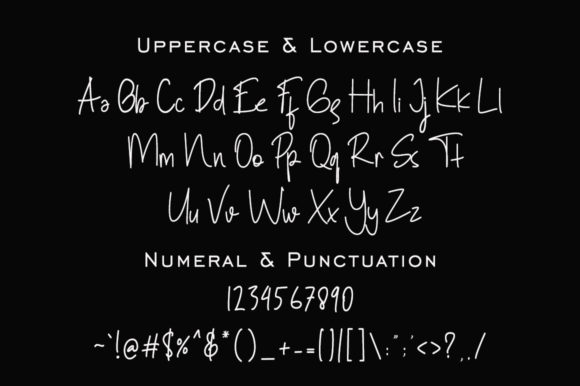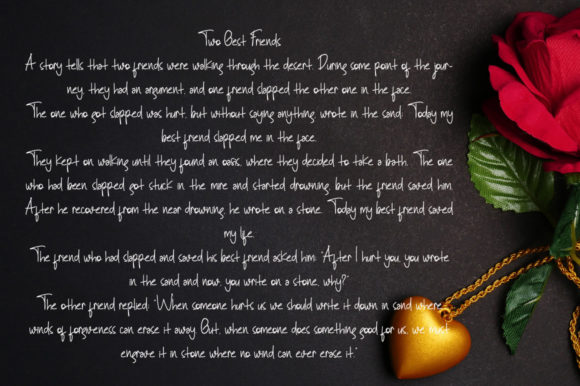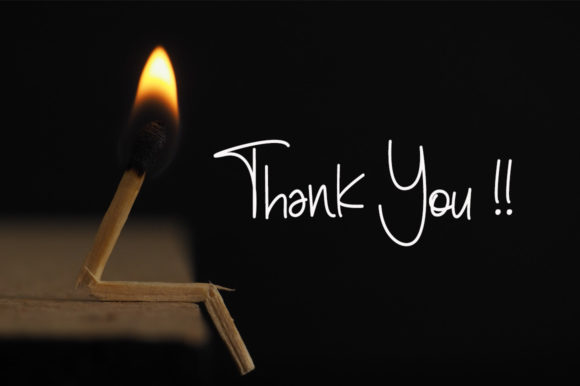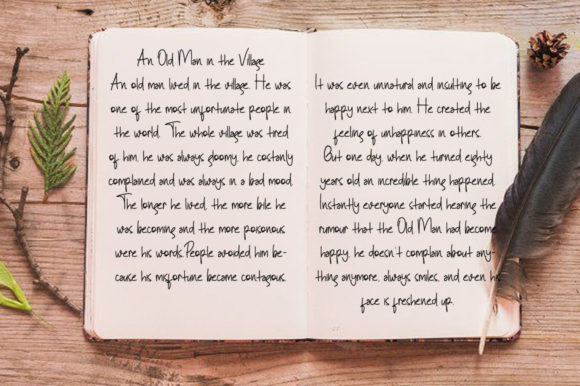
The Pangrango Font
About The Pangrango Font
The Pangrango is a pure handwritten font. This font is created by hand with a natural and elegant style. It features clean and modern lettering that you can use for all kinds of print and digital designs, such as logos, invitations, wedding designs, labels, and papers, short stories, resumes, thumbnails.